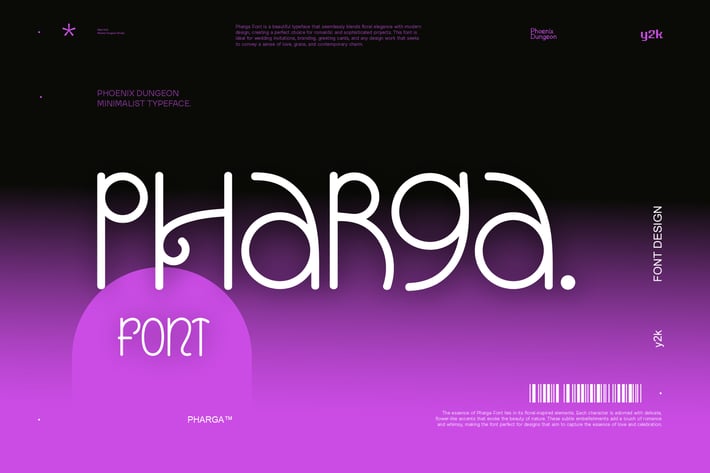
Pharga Font
Pharga Font is a beautiful typeface that seamlessly blends floral elegance with modern design, creating a perfect choice for romantic and sophisticated projects. This font is ideal for wedding invitations, branding, greeting cards, and any design work that seeks to convey a sense of love, grace, and contemporary charm.